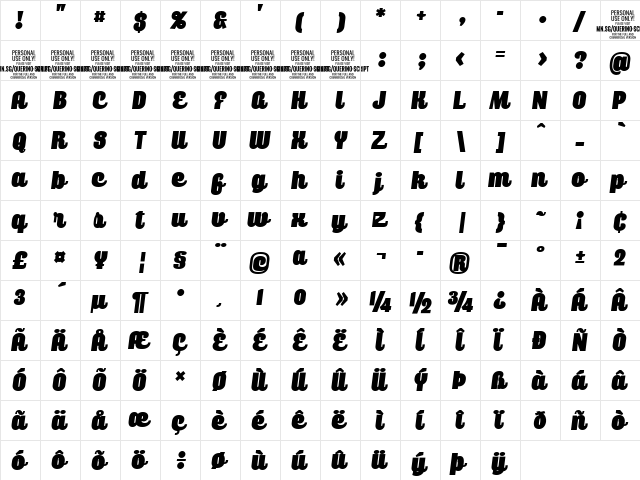
Querino Script PERSONAL USE Italic Font Preview
Querino Script PERSONAL USE Italic
Querino Script PERSONAL USE Italic Font Details
Design Context for Querino Script PERSONAL USE Typeface
Querino Script PERSONAL USE flows with the natural rhythm of handwritten lettering, making it ideal for designs that call for warmth and personal expression.
Font Pairing: Combine Querino Script PERSONAL USE with a simple geometric sans for maximum contrast — the tension between flowing curves and clean structure is a classic typographic pairing.
Pro Tip: Pair Querino Script PERSONAL USE with a clean sans-serif for supporting text. The contrast between fluid script and geometric structure creates an elegant typographic hierarchy.